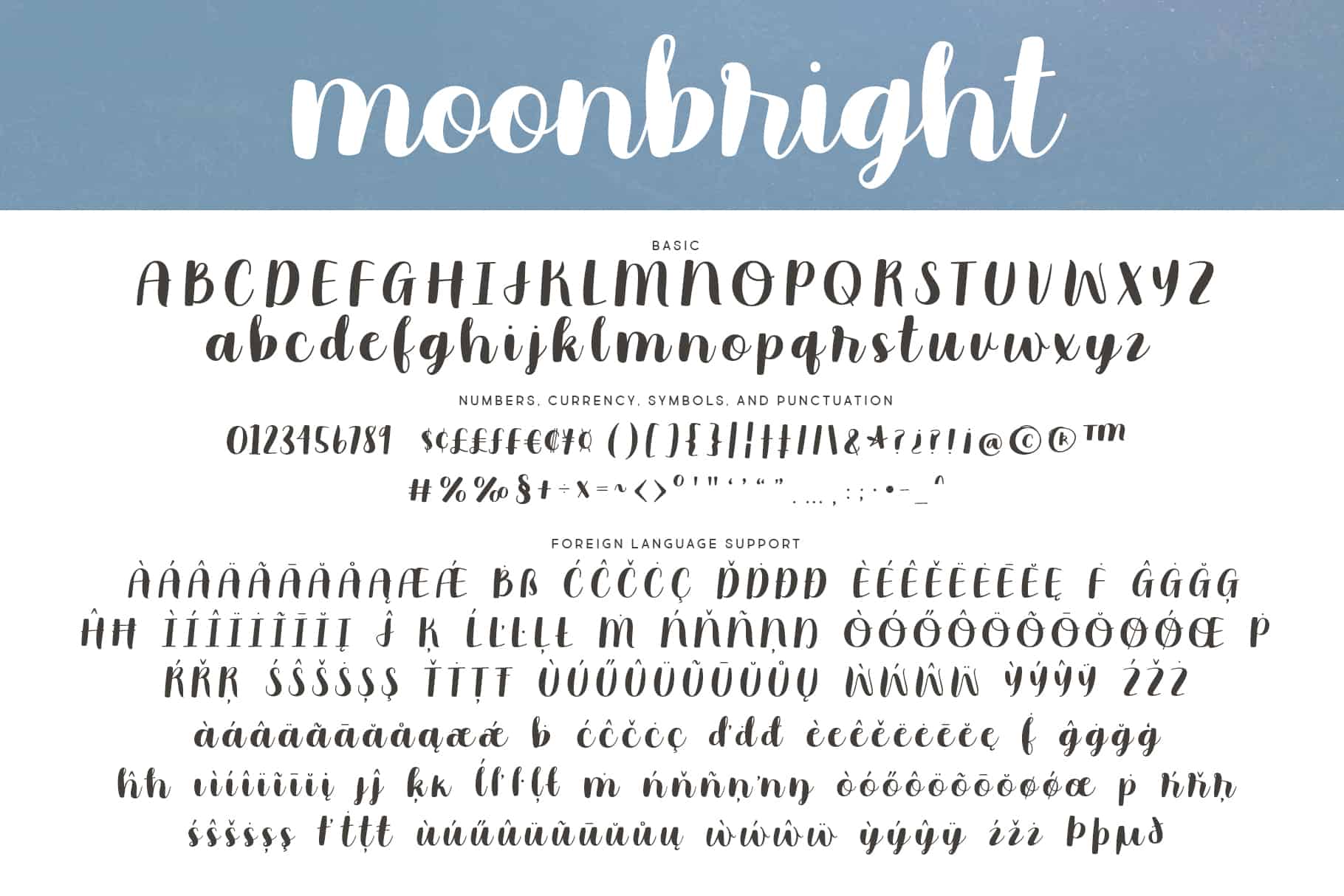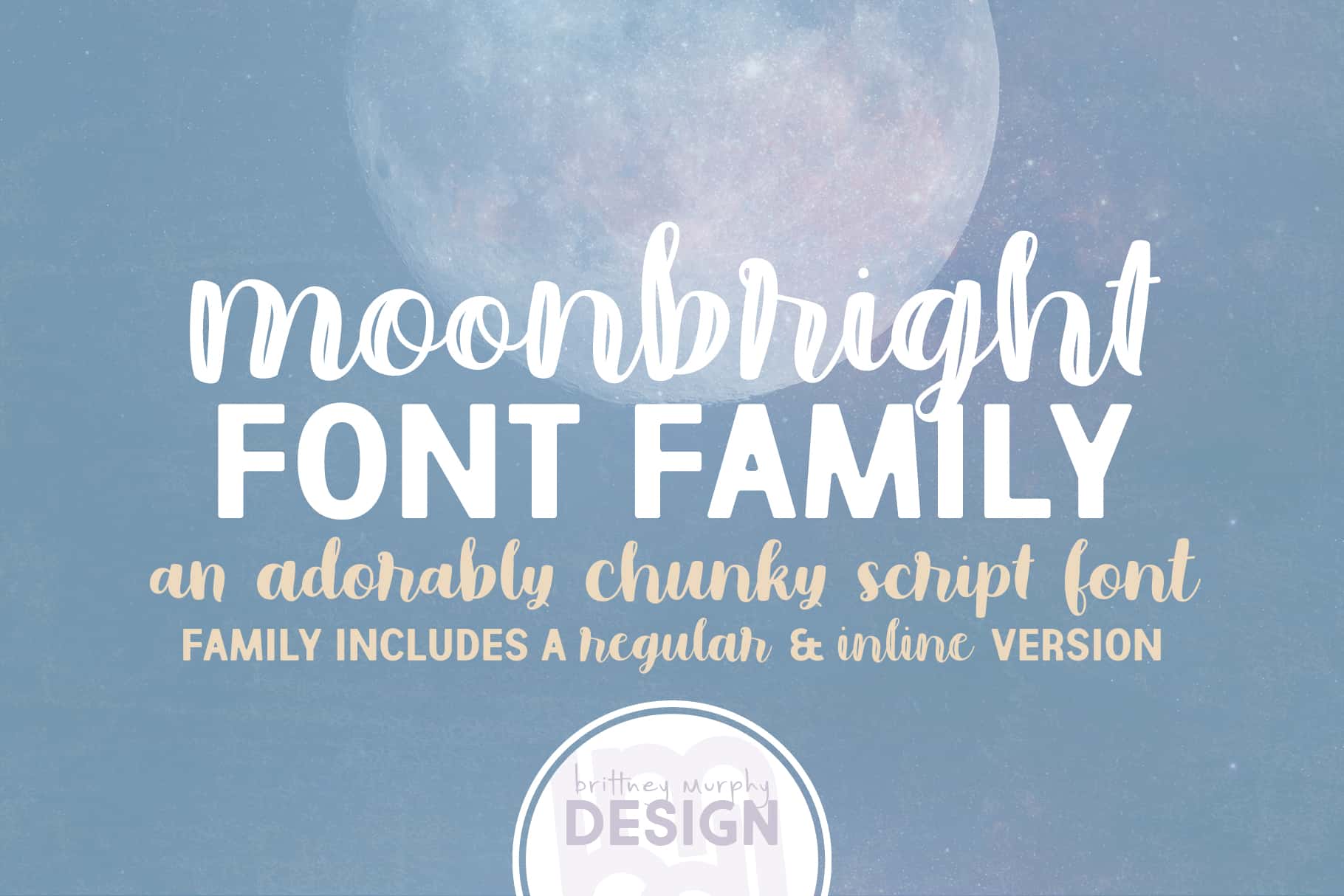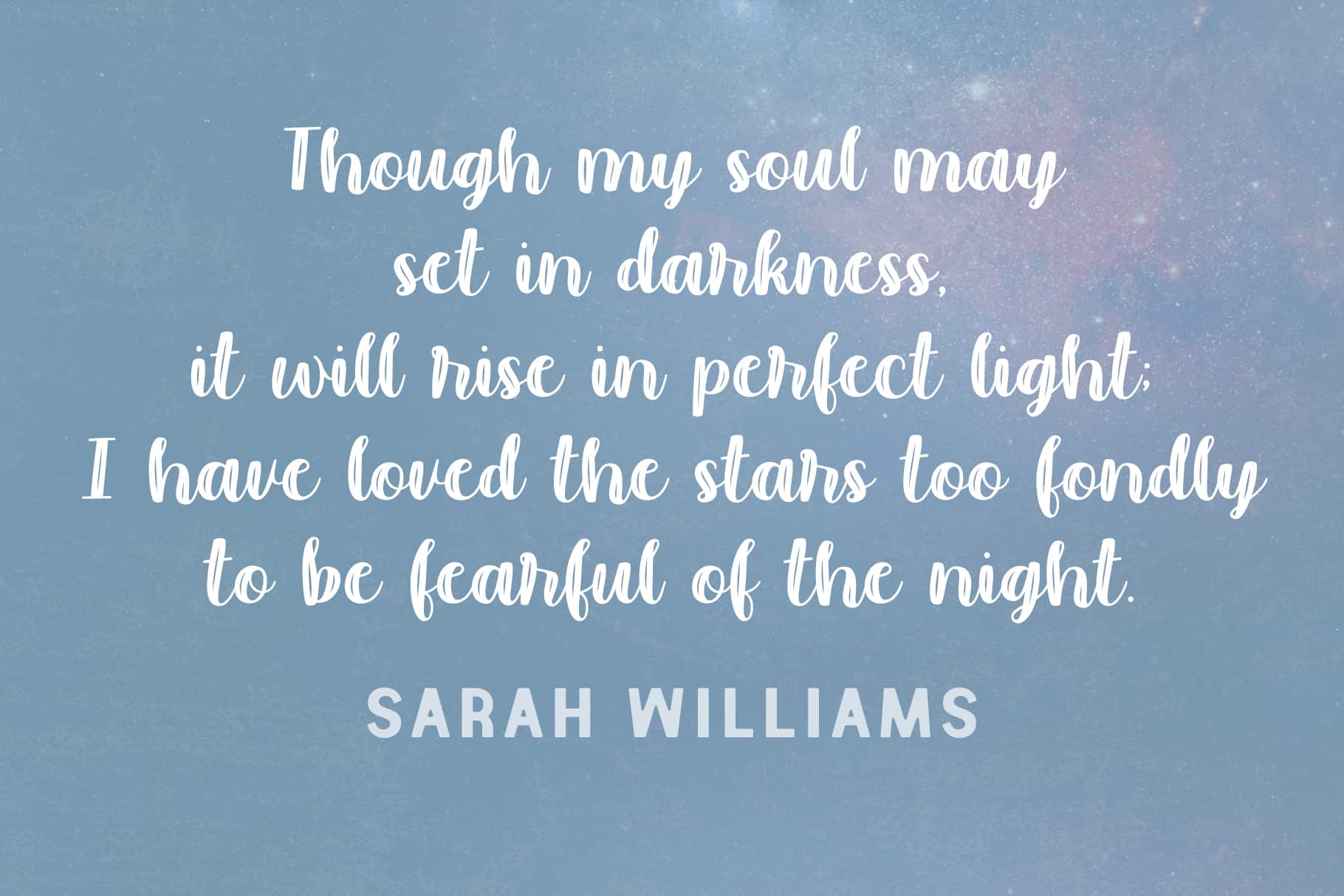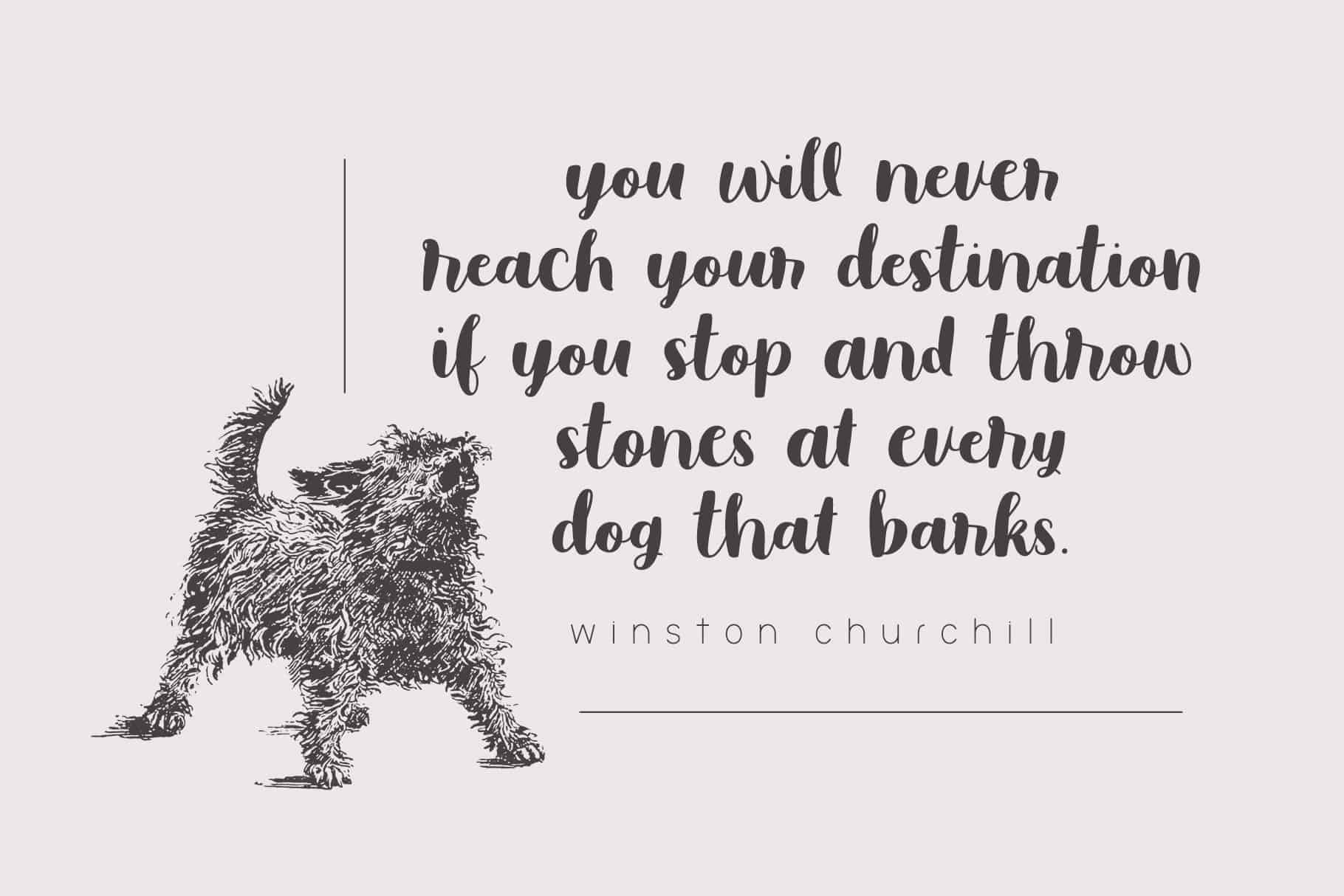
Moonbright Font
Moonbright Font Family
Regular Moonb Quote
Regular Basic Letters
Regular Inl Quote
About this Moonbright Font Family
Moonbright is a cute, chunky script font. Includes most Latin-based foreign language support (see images for accented letters included). Great for headlines or decor! Created in 2019, our Moonbright font contains over 800 glyphs with many alternates and ligatures. Additionally, the Moonbright font also has anĀ inline versionĀ that gives a different feel for the same characters.
What Fonts Pair Weill with Moonbright?
Our top suggestion is Market Fresh, but any fonts that can give some balance to your design. A clean or sharp serif or sans will do very well.